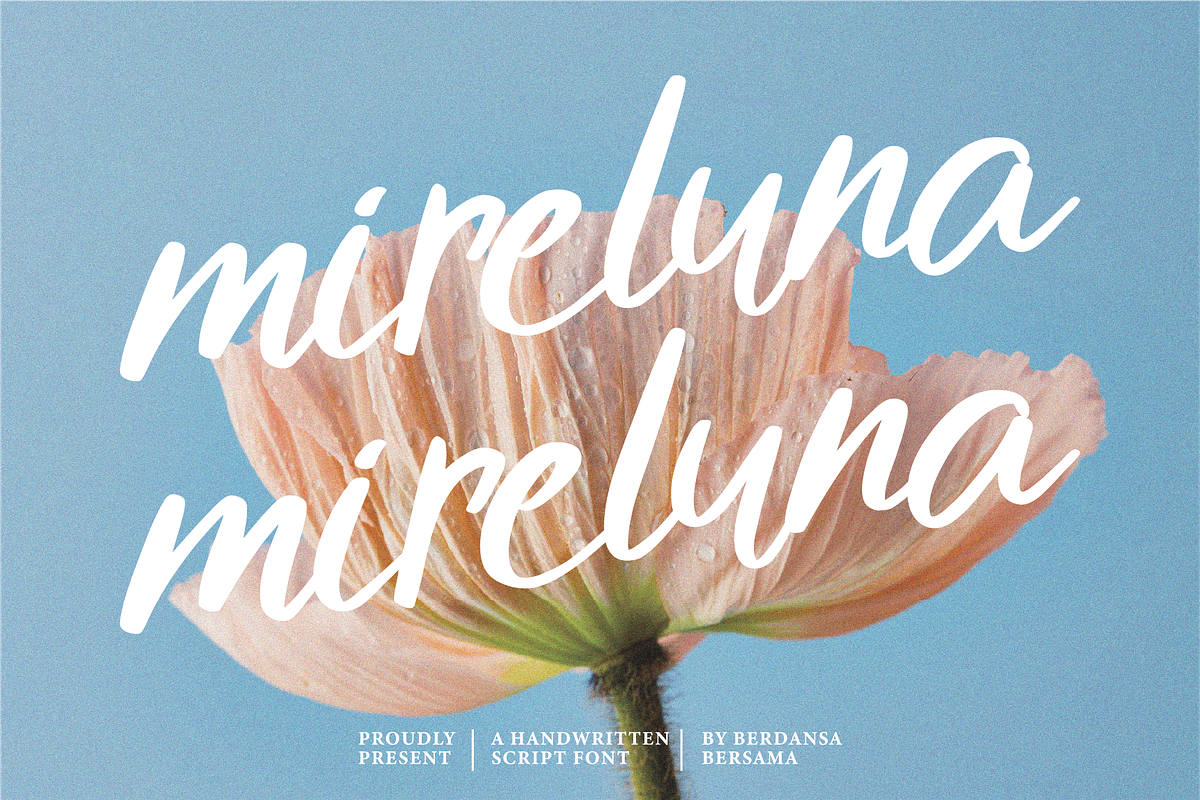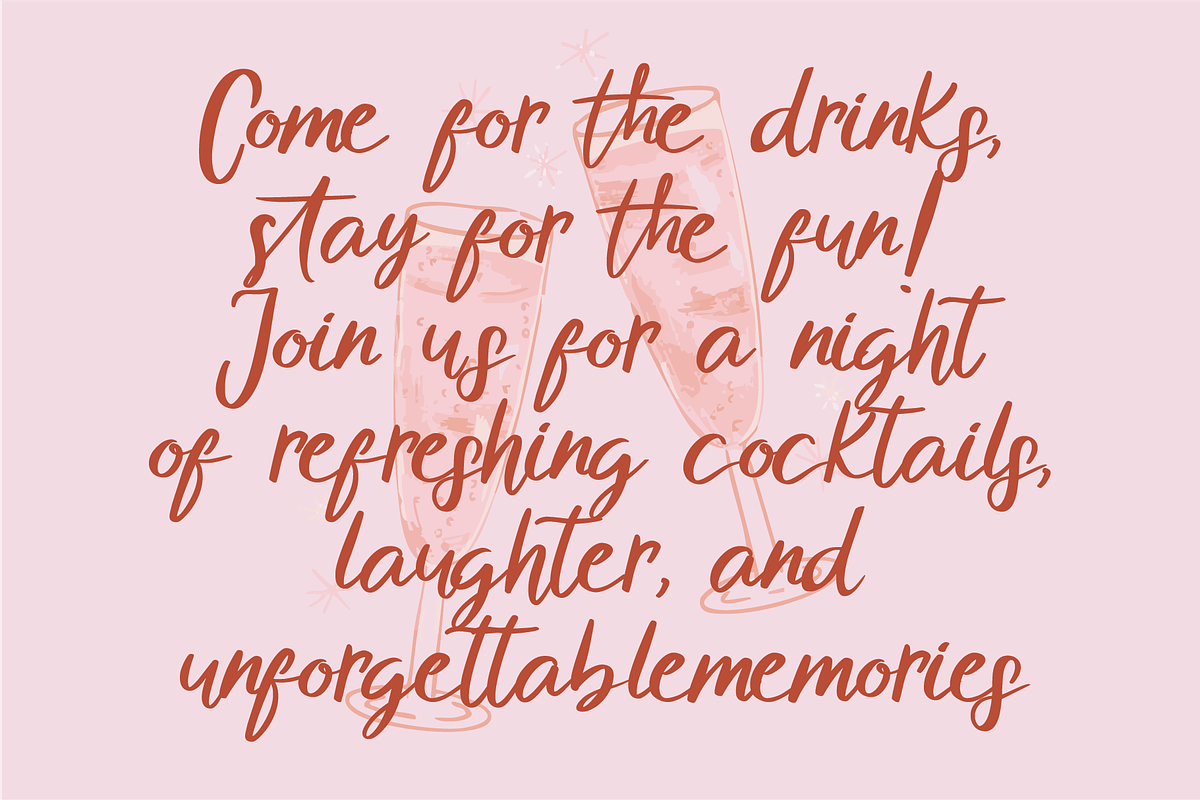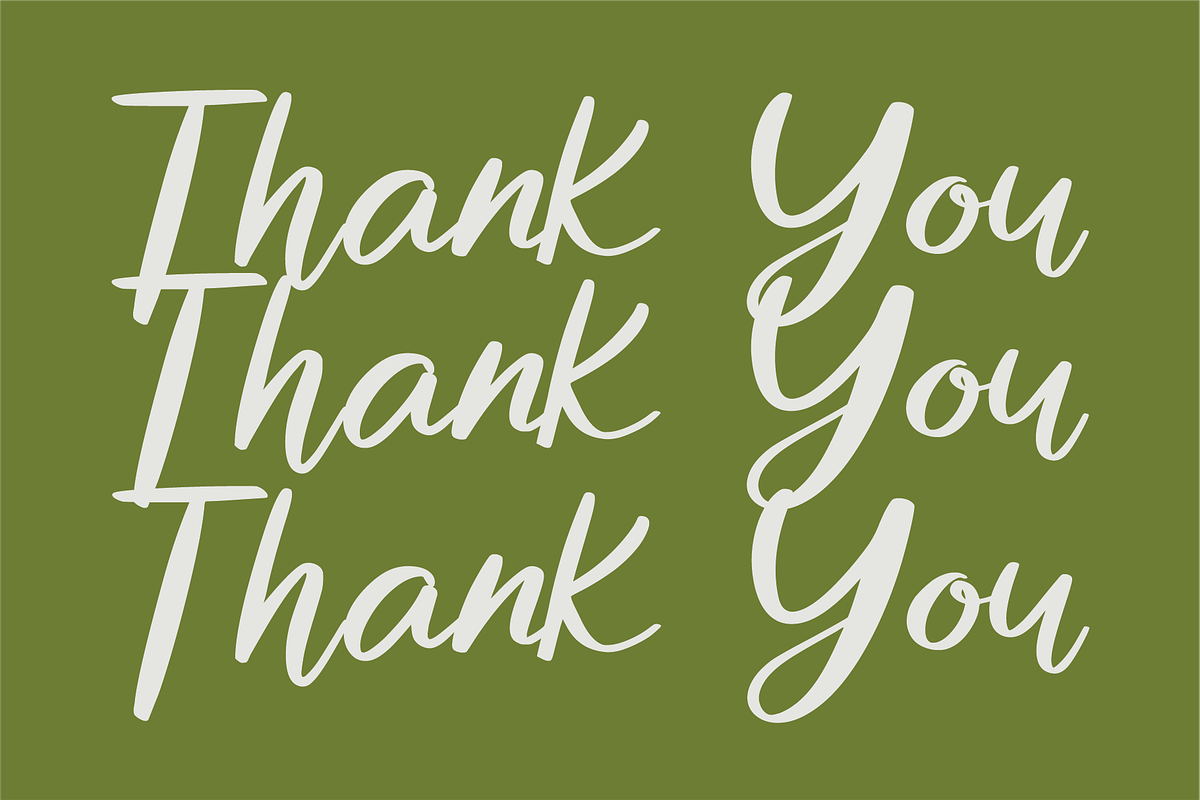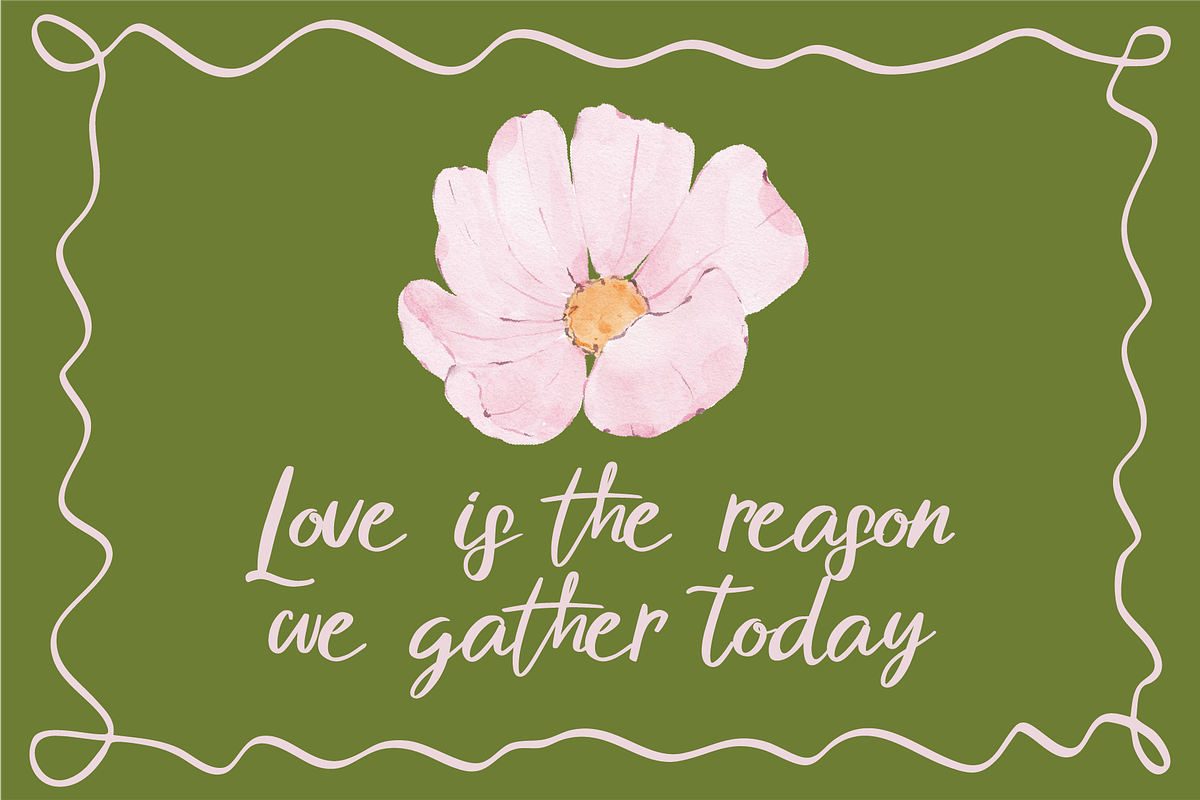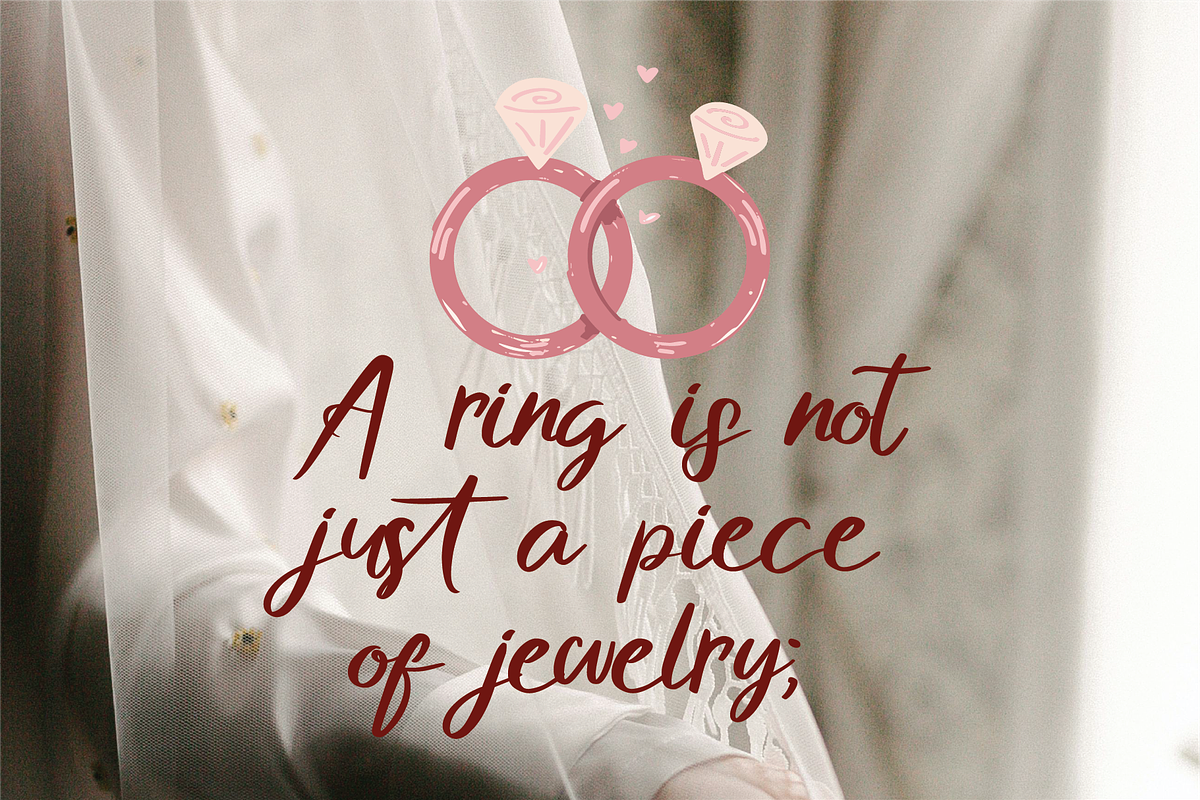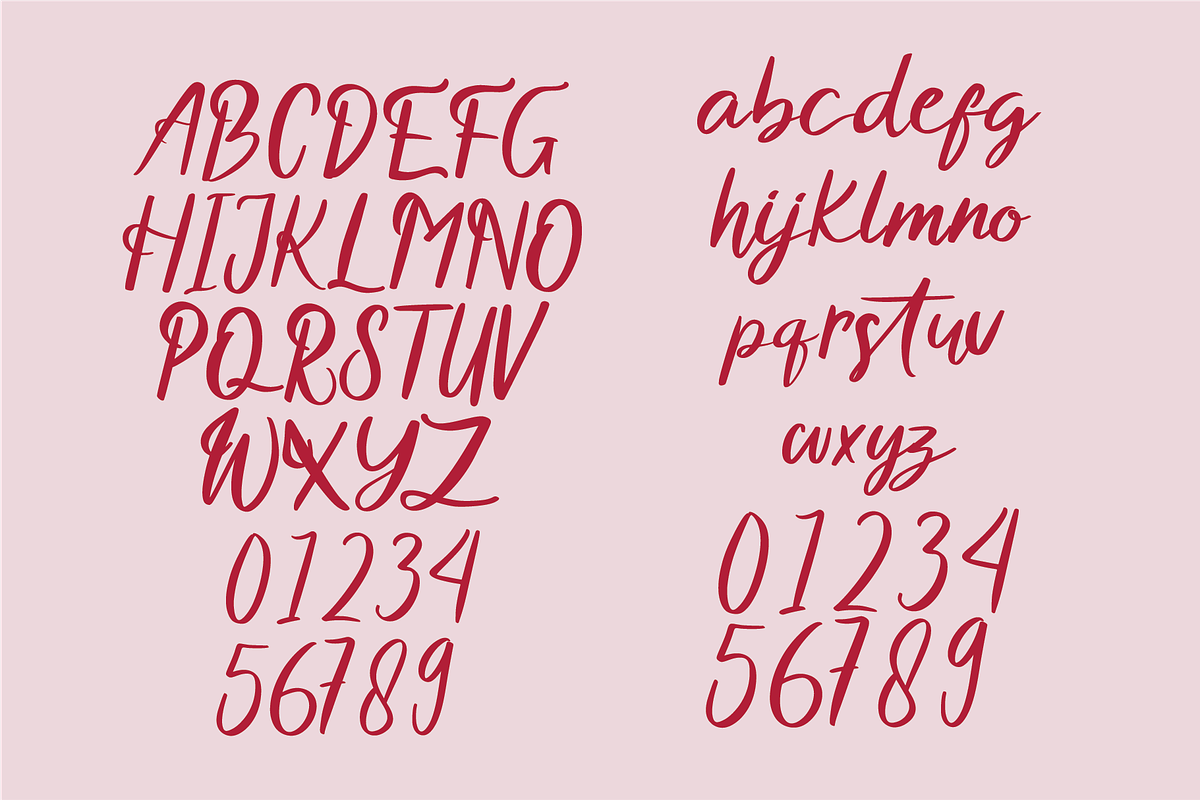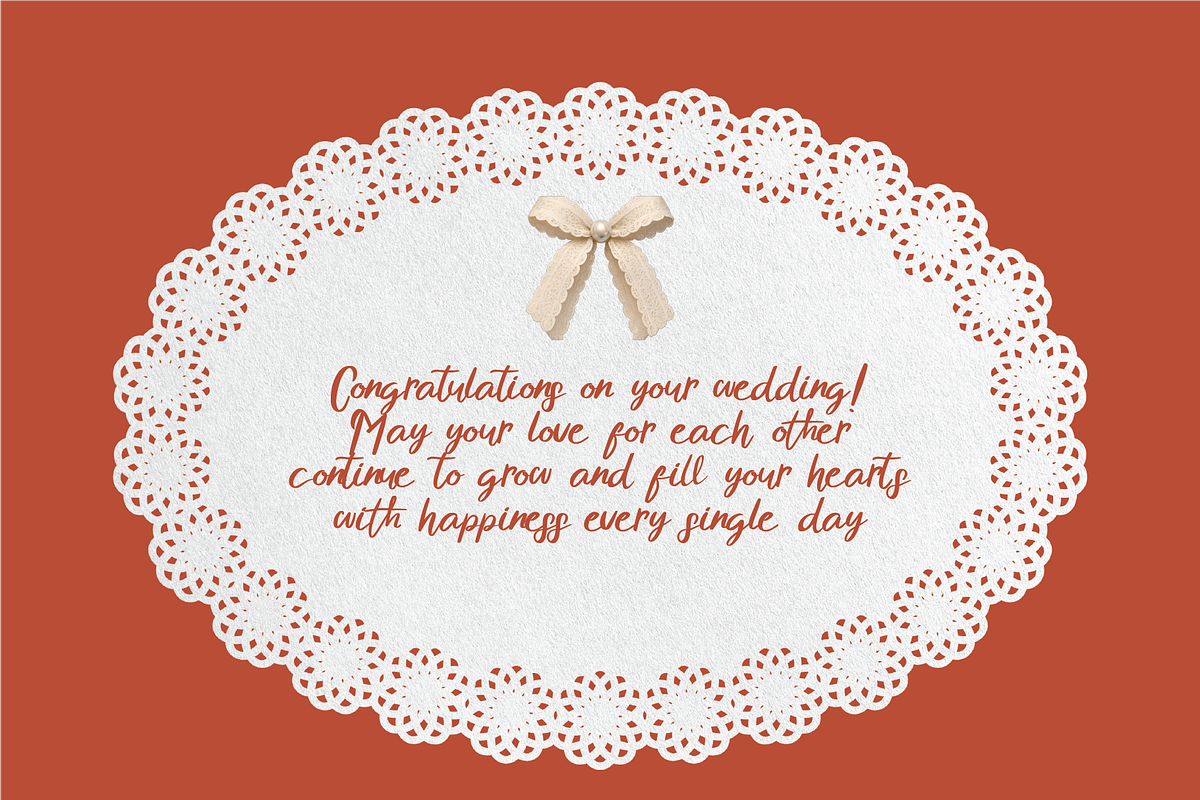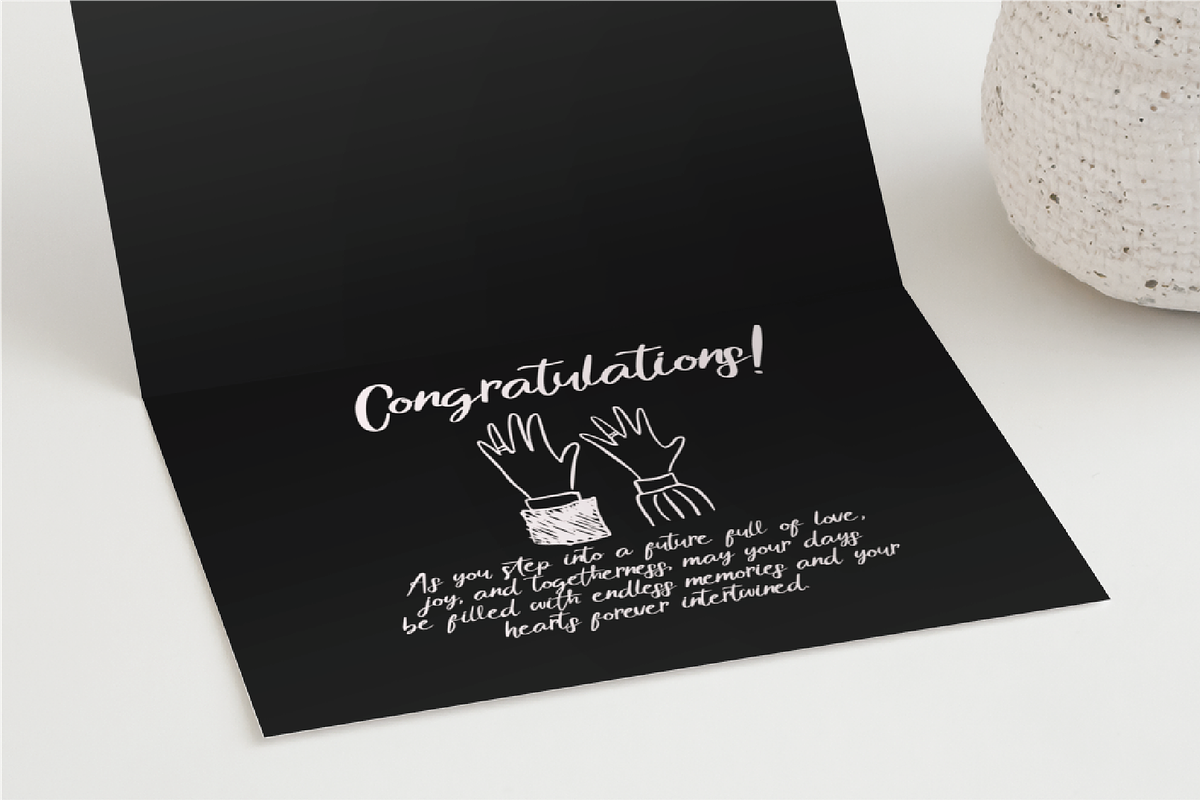
Mireluna Script Font
Mireluna is a gentle script font with smooth flowing strokes and a soft handwritten elegance. Each letter curves naturally, creating a warm and graceful rhythm — like writing in the middle of a quiet morning with sunlight falling through sheer curtains.